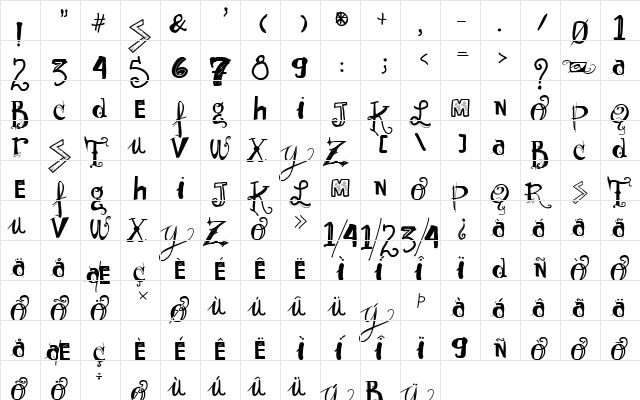
Vtks Sunny Day Regular
| Foundry | Douglas Vitkauskas |
| Designer | douglas vitkauskas |
Design Context for Vtks Sunny Day Typeface
Vtks Sunny Day is a composed and adaptable typeface that performs quietly and consistently across a wide range of design contexts.